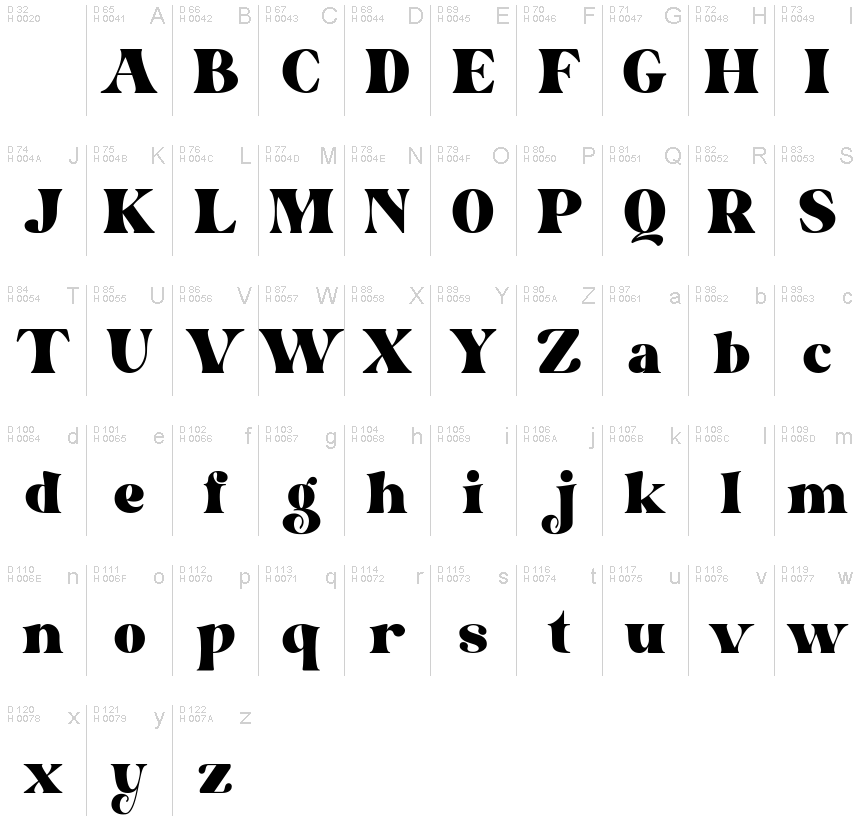
Vorlesta Regular
Vorlesta, a bold and captivating display font crafted by the talented Achmad Yani of Flawless and co., exudes a captivating retro-inspired aesthetic. This typeface boasts striking letterforms that command attention, with a bold and defined presence that evokes a sense of vintage charm and modern sophistication.
Vorlesta's versatility shines through its ability to seamlessly integrate into a wide range of design projects, from eye-catching headlines and impactful branding to retro-themed packaging and editorial layouts. Its strong, confident personality makes it an excellent choice for designers seeking to create a memorable and visually striking impression.